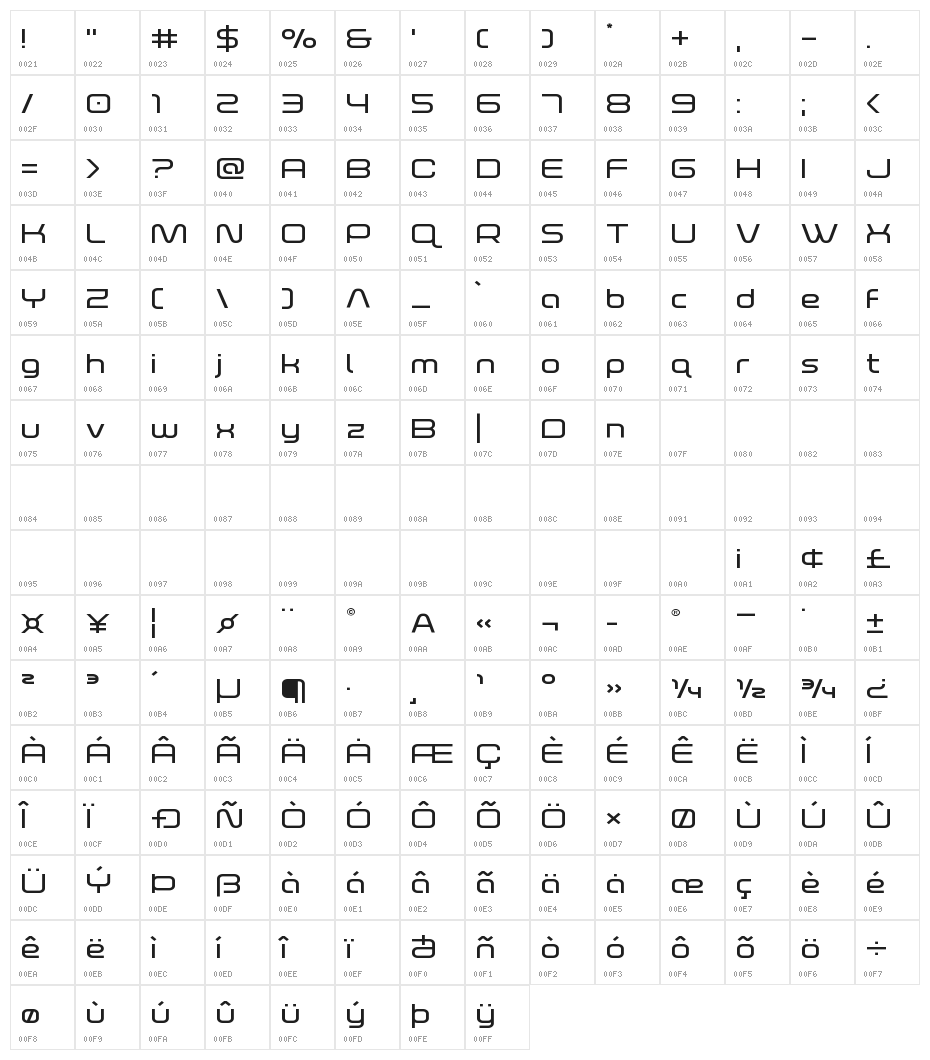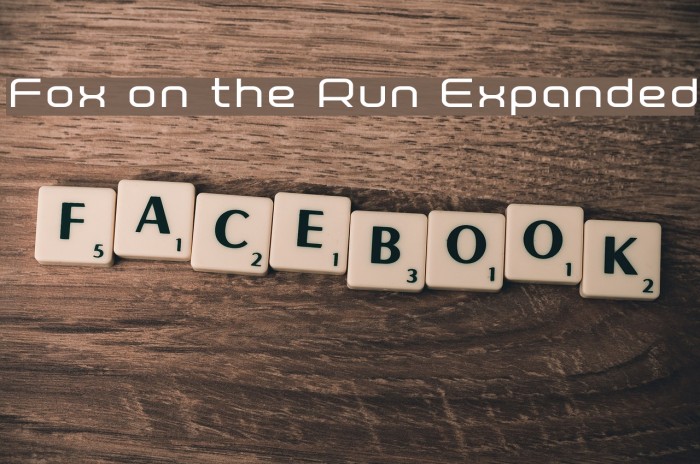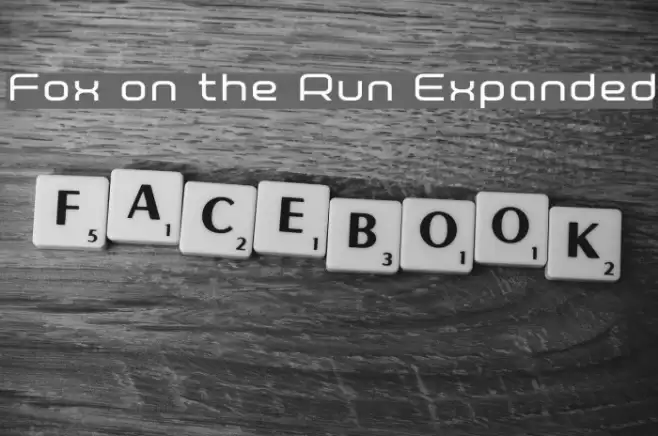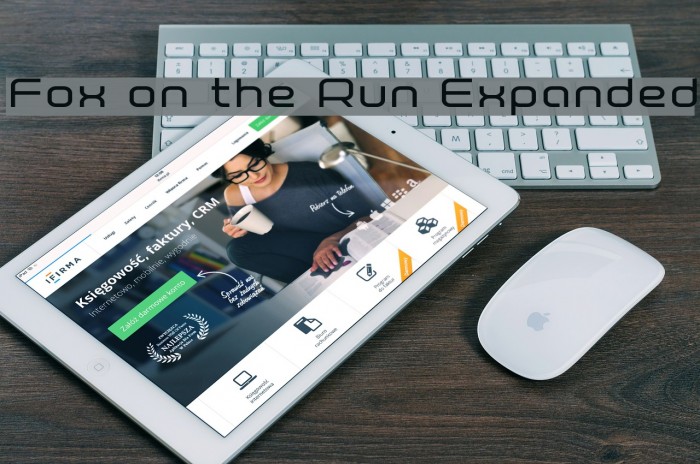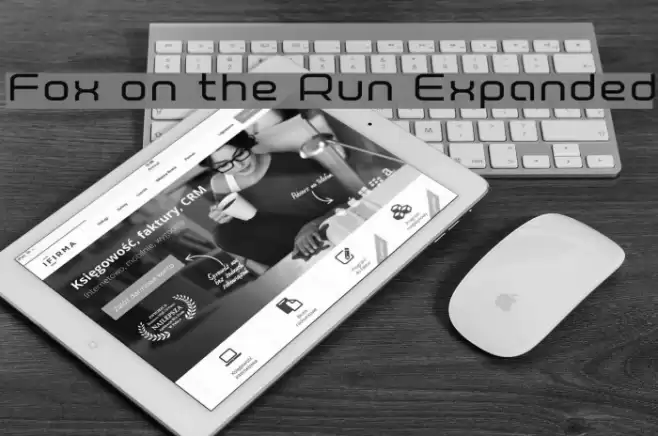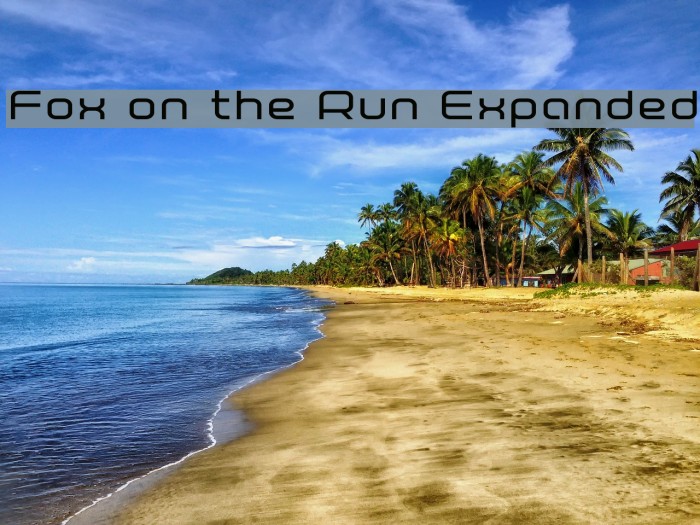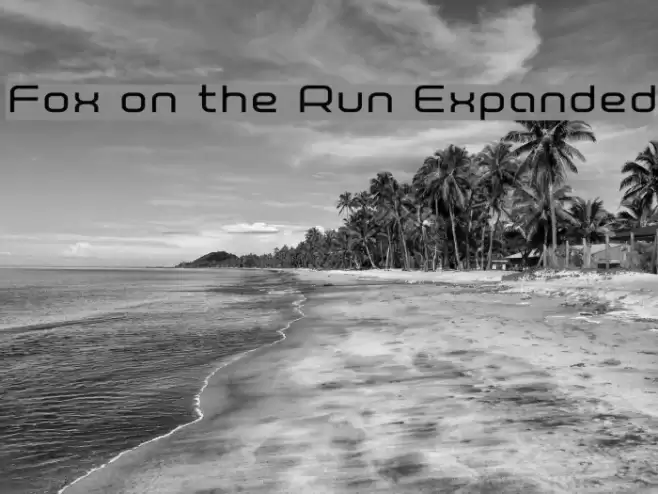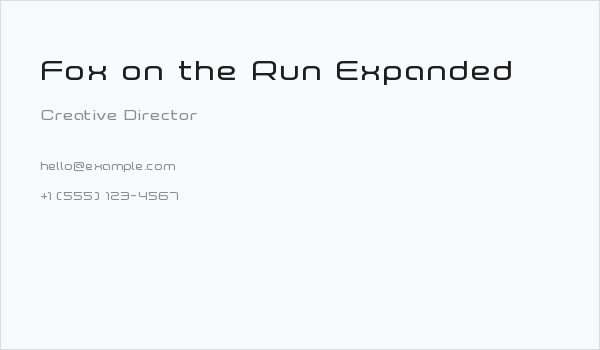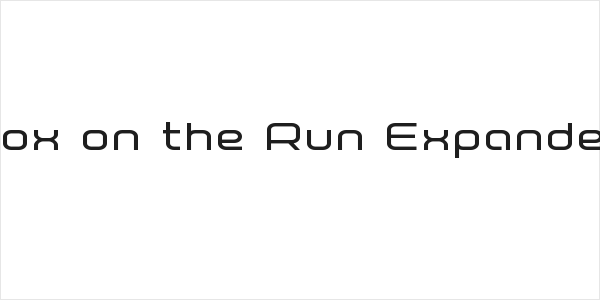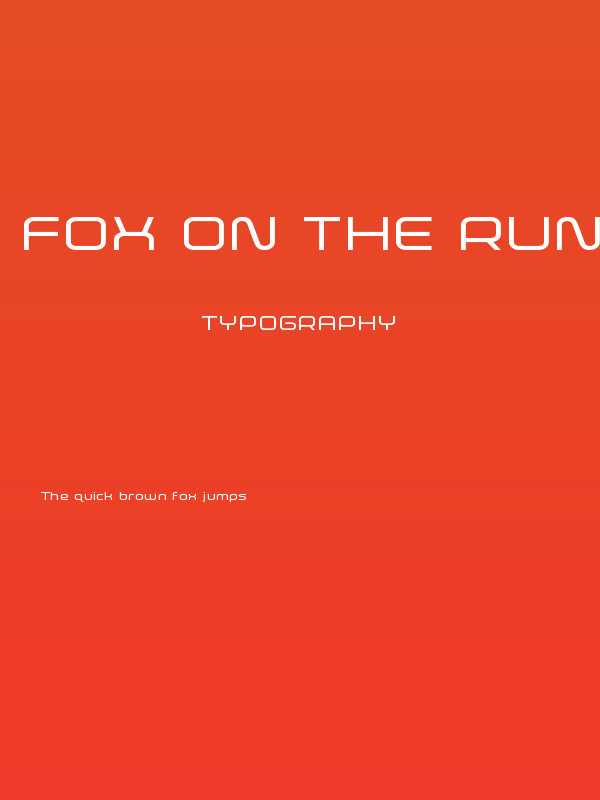
Fox on the Run Expanded Font
Fox on the Run Expanded Description
This font features a modern, geometric design with rounded edges and a clean, streamlined appearance. The characters are evenly spaced, providing a balanced and harmonious look. The uppercase letters are bold and prominent, while the lowercase letters maintain a consistent style with slightly softer curves. The numerals are distinct and easy to read, matching the overall aesthetic of the font. Special characters are included, maintaining the same geometric and modern feel. This font is versatile, suitable for various design projects that require a contemporary and sleek look.
| Use Case | Headlines, Logos, Digital Media |
| Proposed Projects | Ideal for branding, digital media, advertising, and modern web design. |